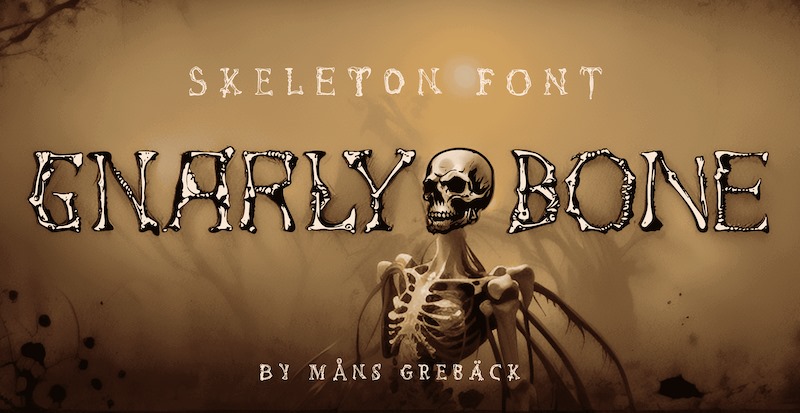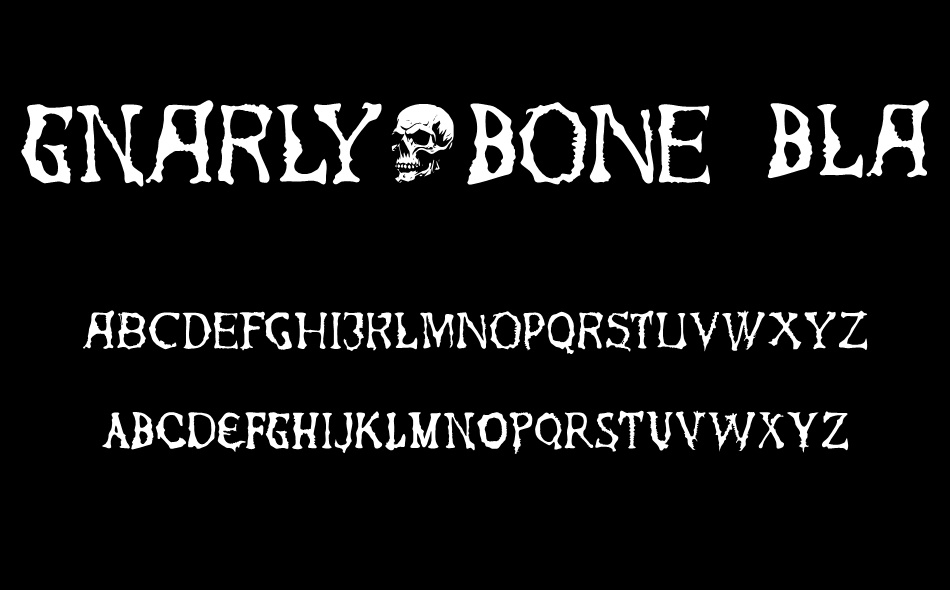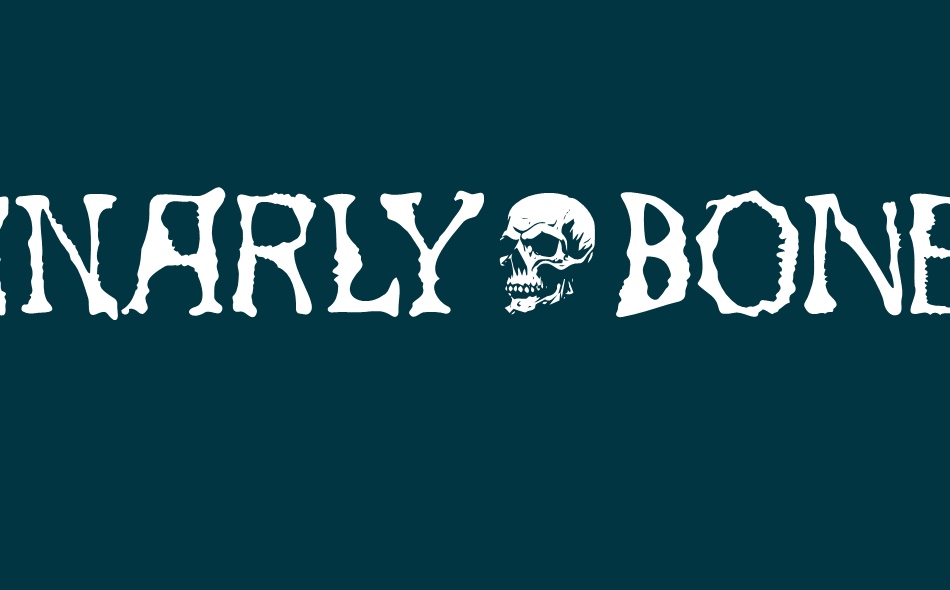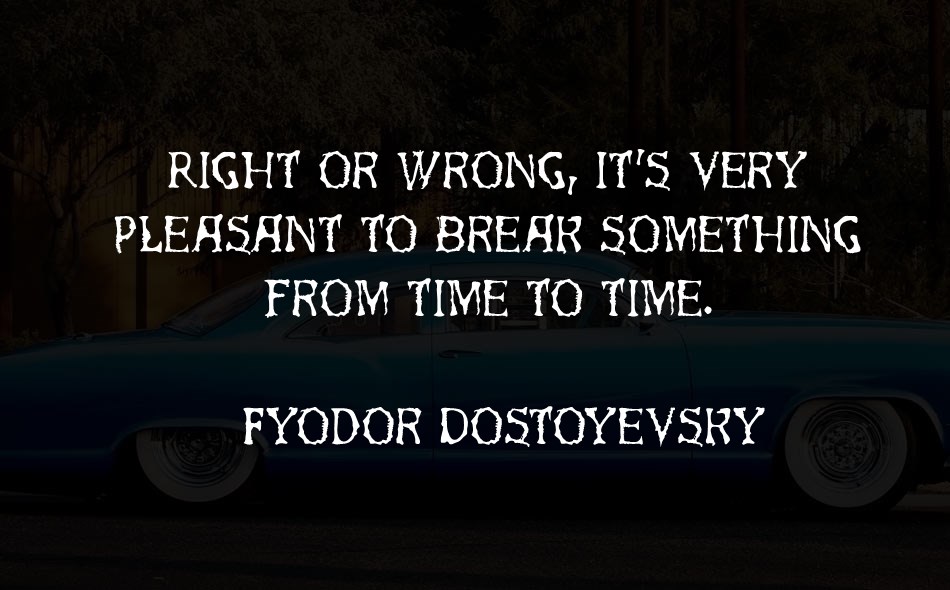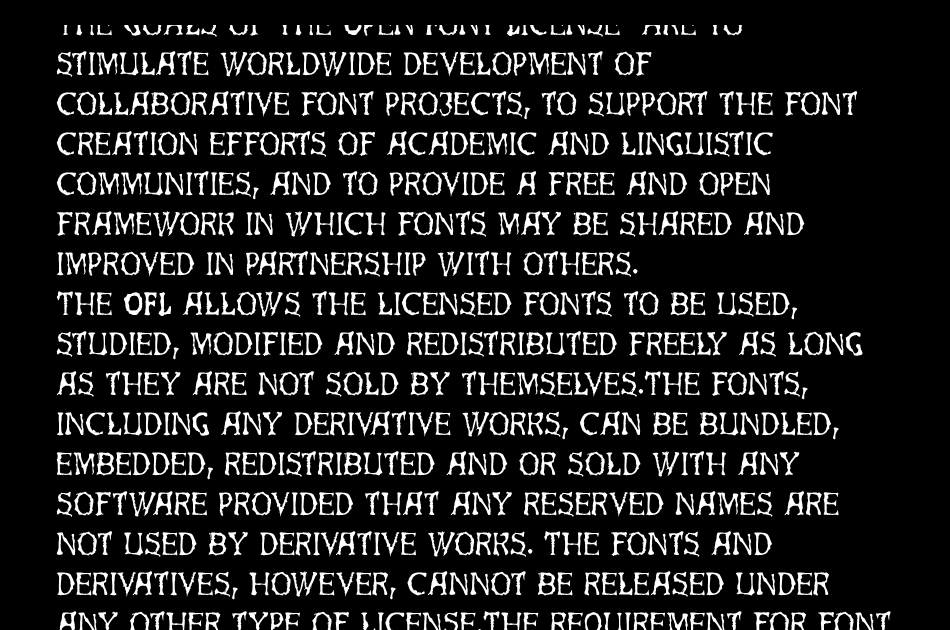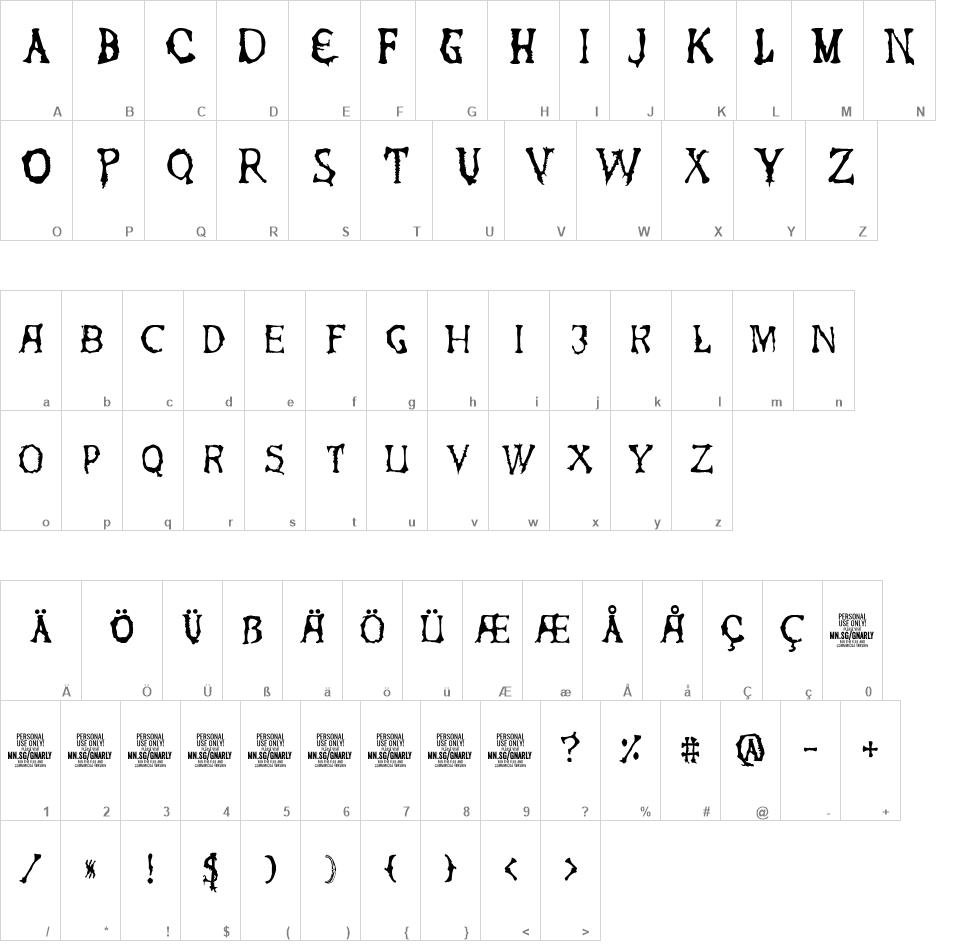
Gnarly Bone font
Gnarly Bone spawns from the eerie silence of a moonlit graveyard, merging skeletal fragments and bone parts to create an alphabet that is as frightening as it is fascinating.
Ideal for posters, invitations or banners for horror or Halloween themed events.
Use the currency symbol to make a skull.
Example: haLlweEn
Use multiple to make different skulls.
Example: Darkness
Gnarly Bone transports you to a realm where the morbid and the artistic collide. Conjuring the eerie silence of a moonlit graveyard, this typeface merges skeletal fragments and bone parts to create an alphabet that is as frightening as it is fascinating. Ideal for posters, invitations or banners for horror-themed events, it carves out a niche in the graphic world with a sinister yet captivating charm, echoing the whispers of the grave in each glyph.
Use the currency symbol ¤ to make a skull.
Example: haLl¤weEn
Use multiple to make different skulls.
Example: ¤¤¤¤¤Darkness¤¤¤¤
The font is built with advanced OpenType functionality and has a guaranteed top-notch quality, containing stylistic and contextual alternates, ligatures, and more features; all to give you full control and customizability. It has extensive lingual support, covering all Latin-based languages, from Northern Europe to South Africa, from America to South-East Asia. It contains all characters and symbols you'll ever need, including all punctuation and numbers.
Mans Greback, the designer behind the Gnarly collection, holds a vast portfolio of innovative typography. He showcases a fusion of tradition with contemporary flair, and the Gnarly series stands as yet another testament to his craftsmanship and creative vision.